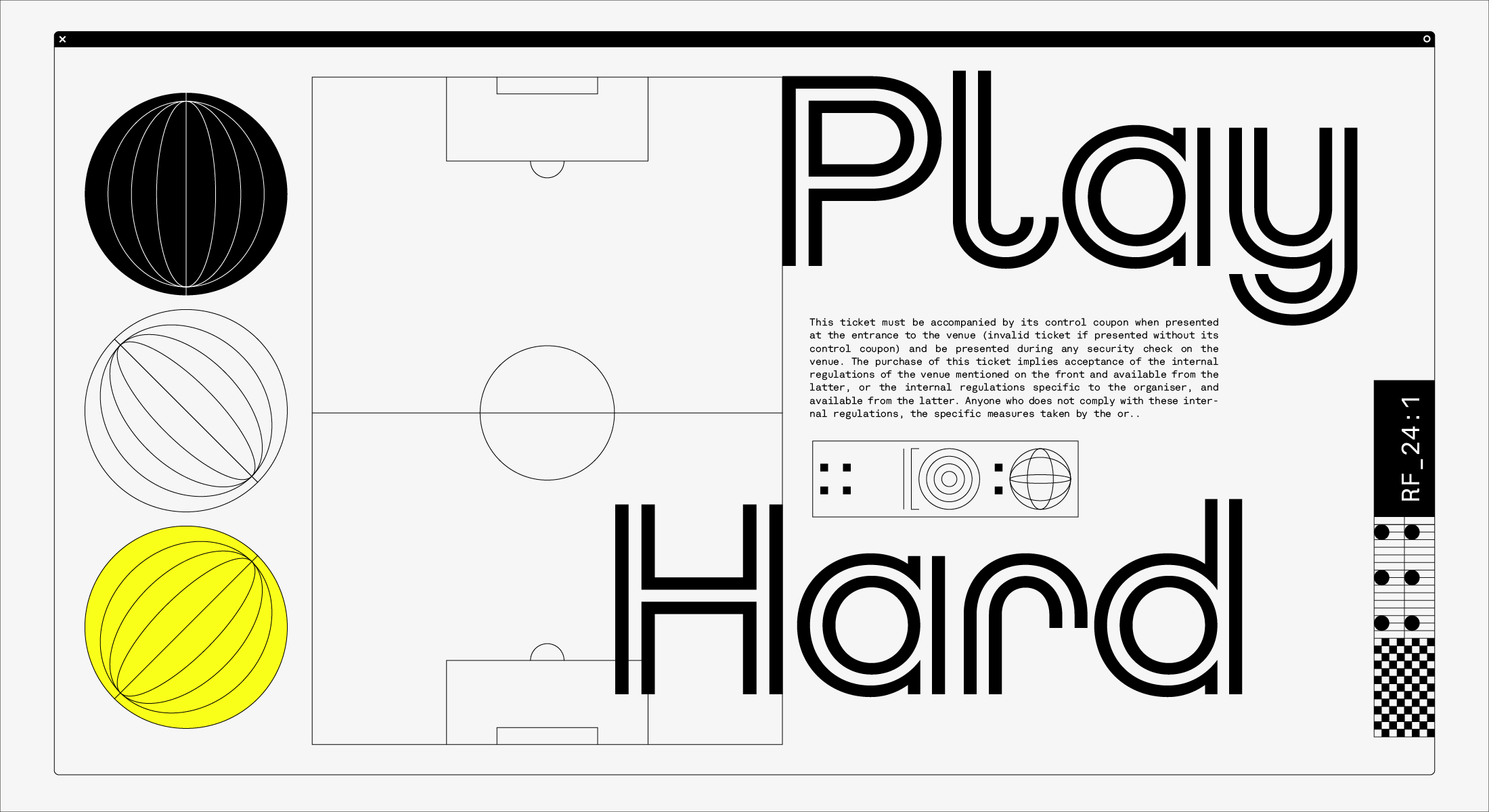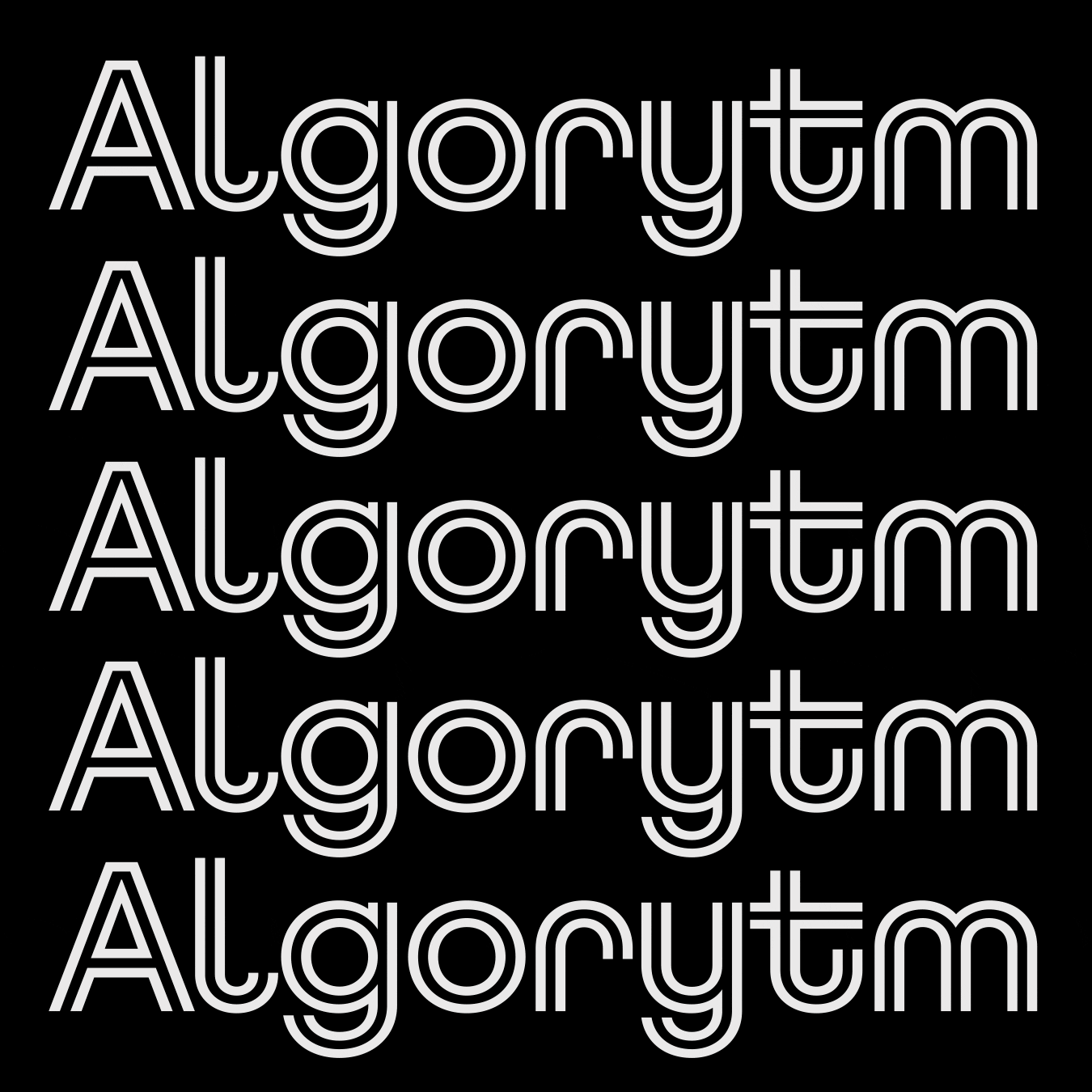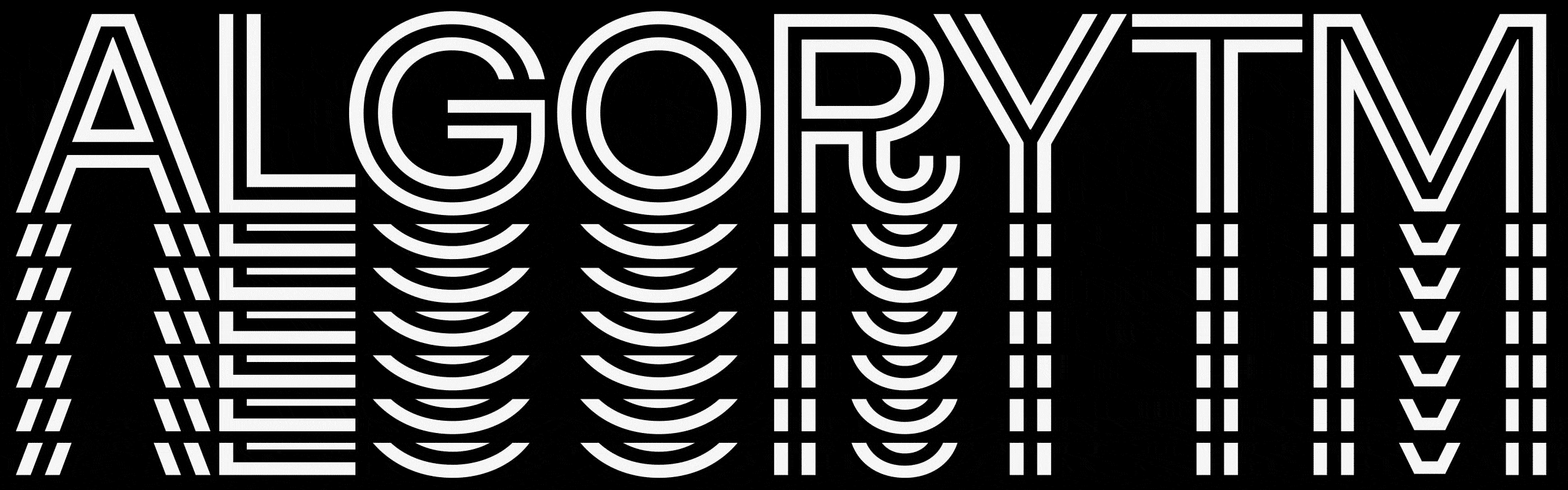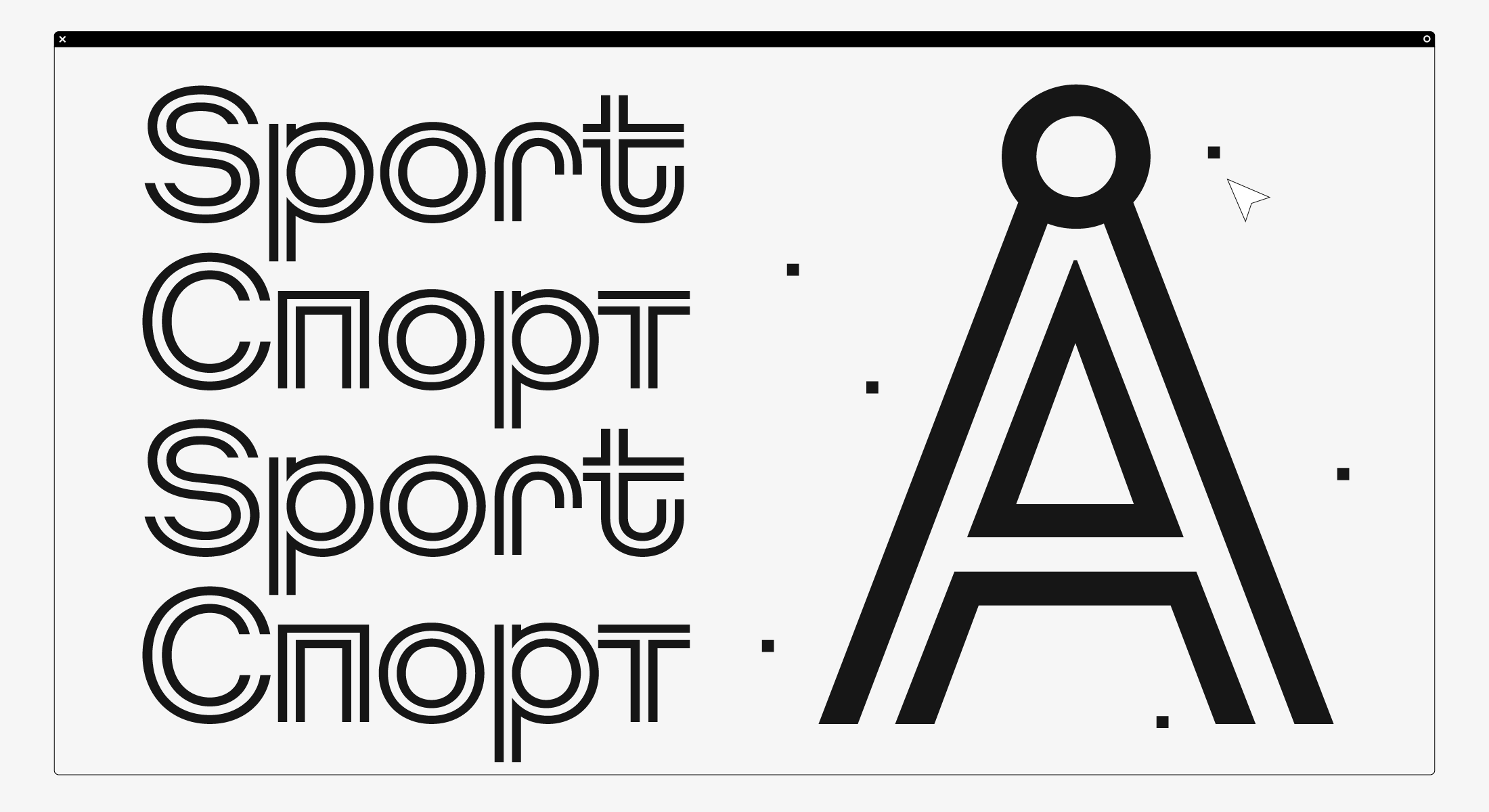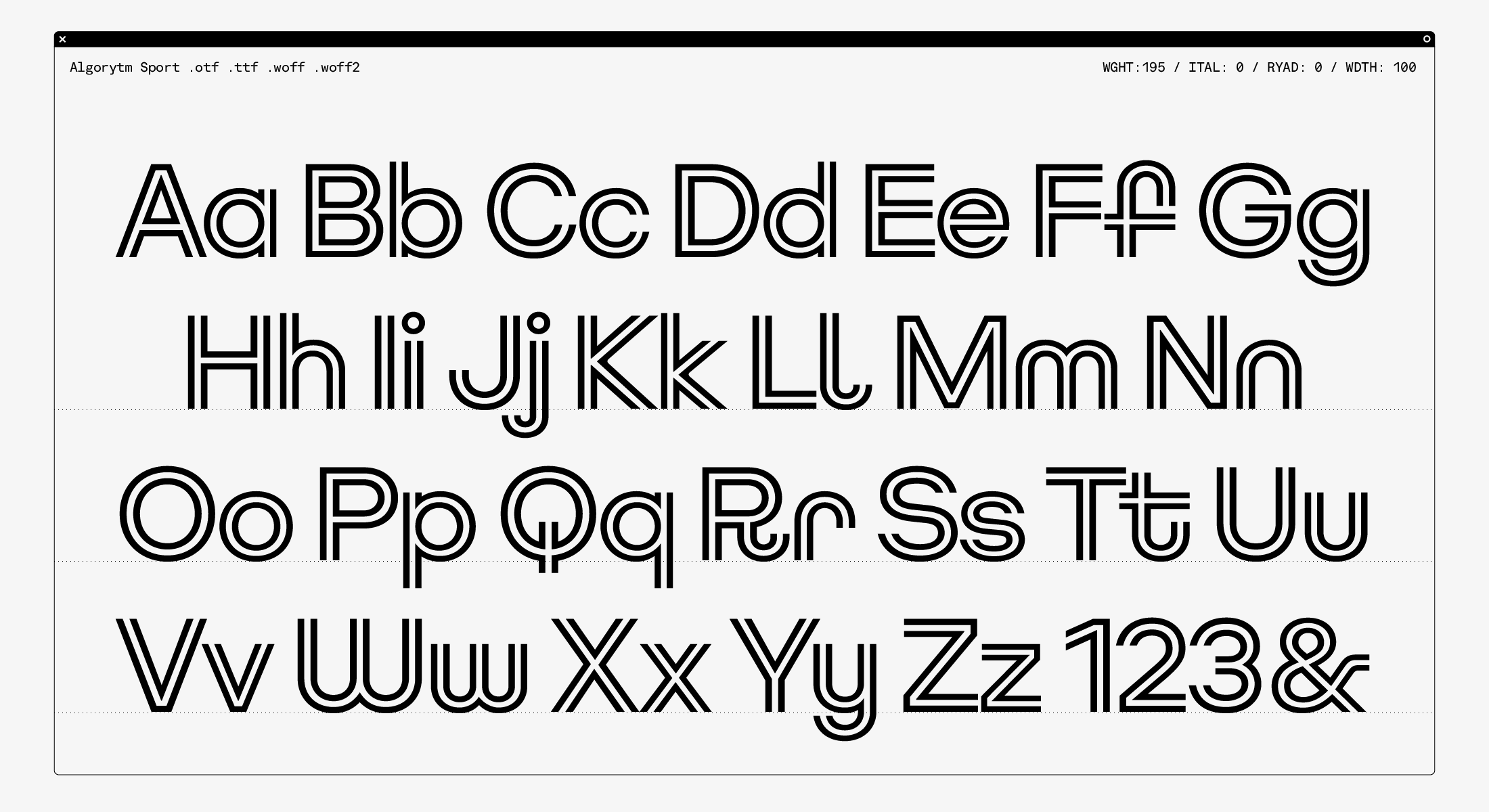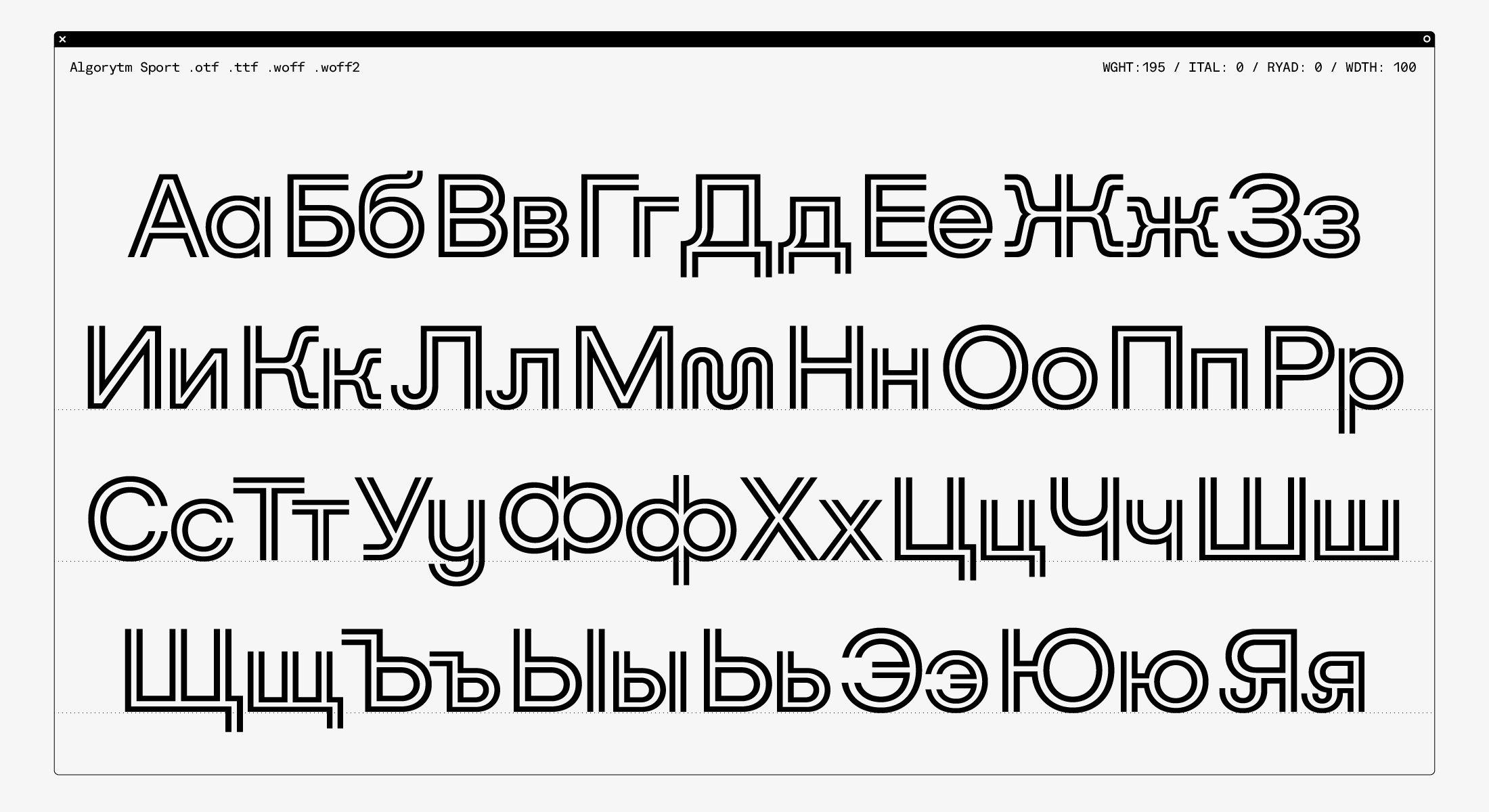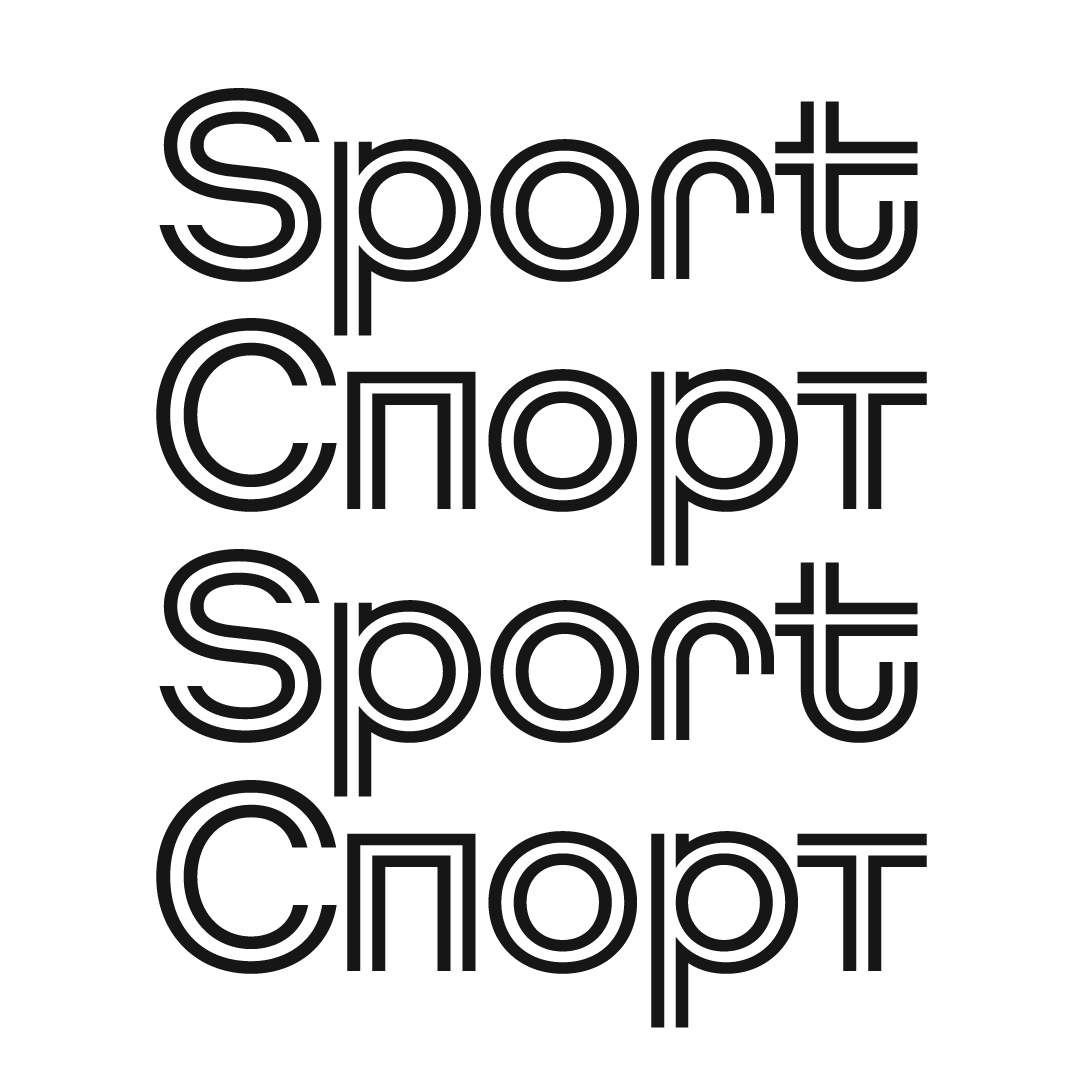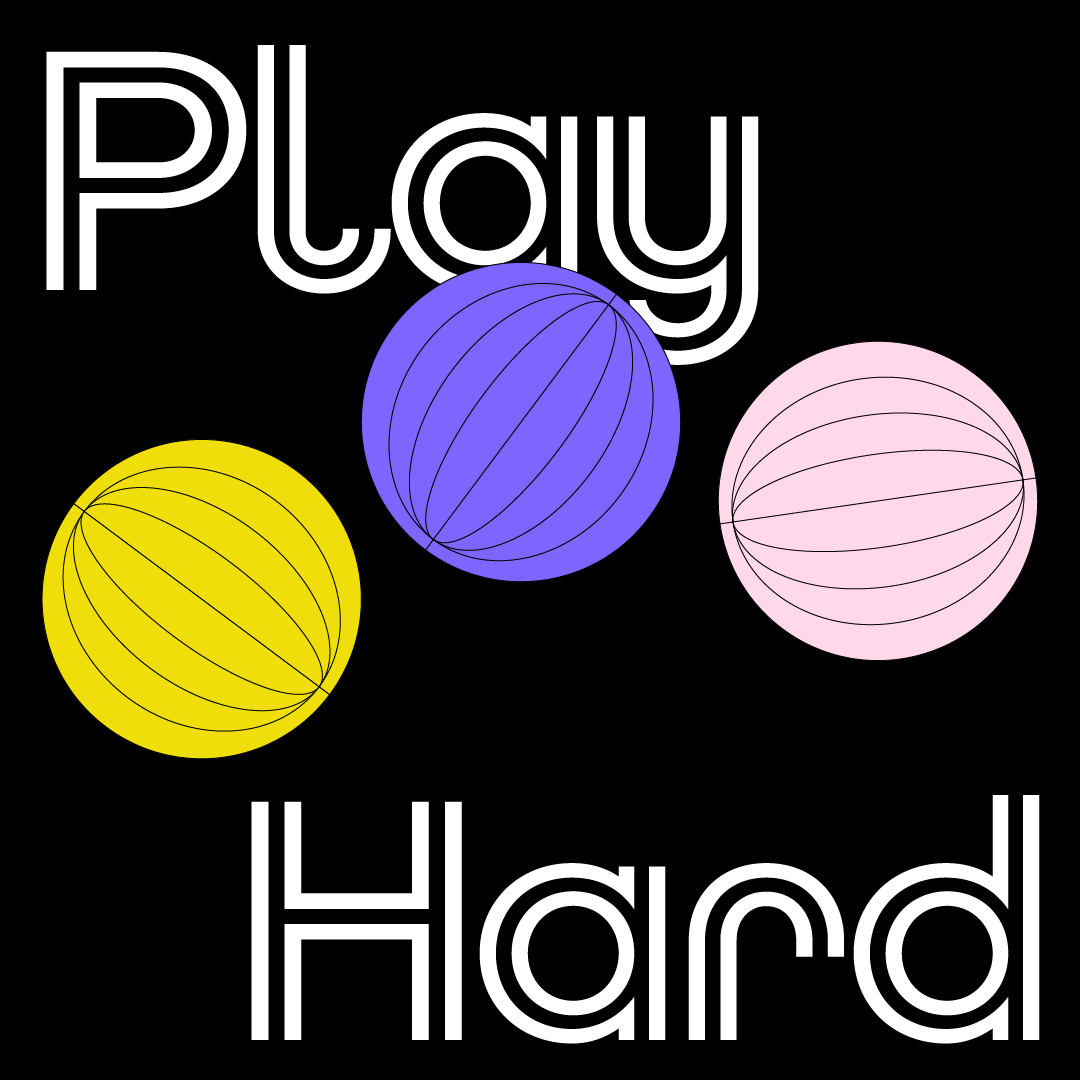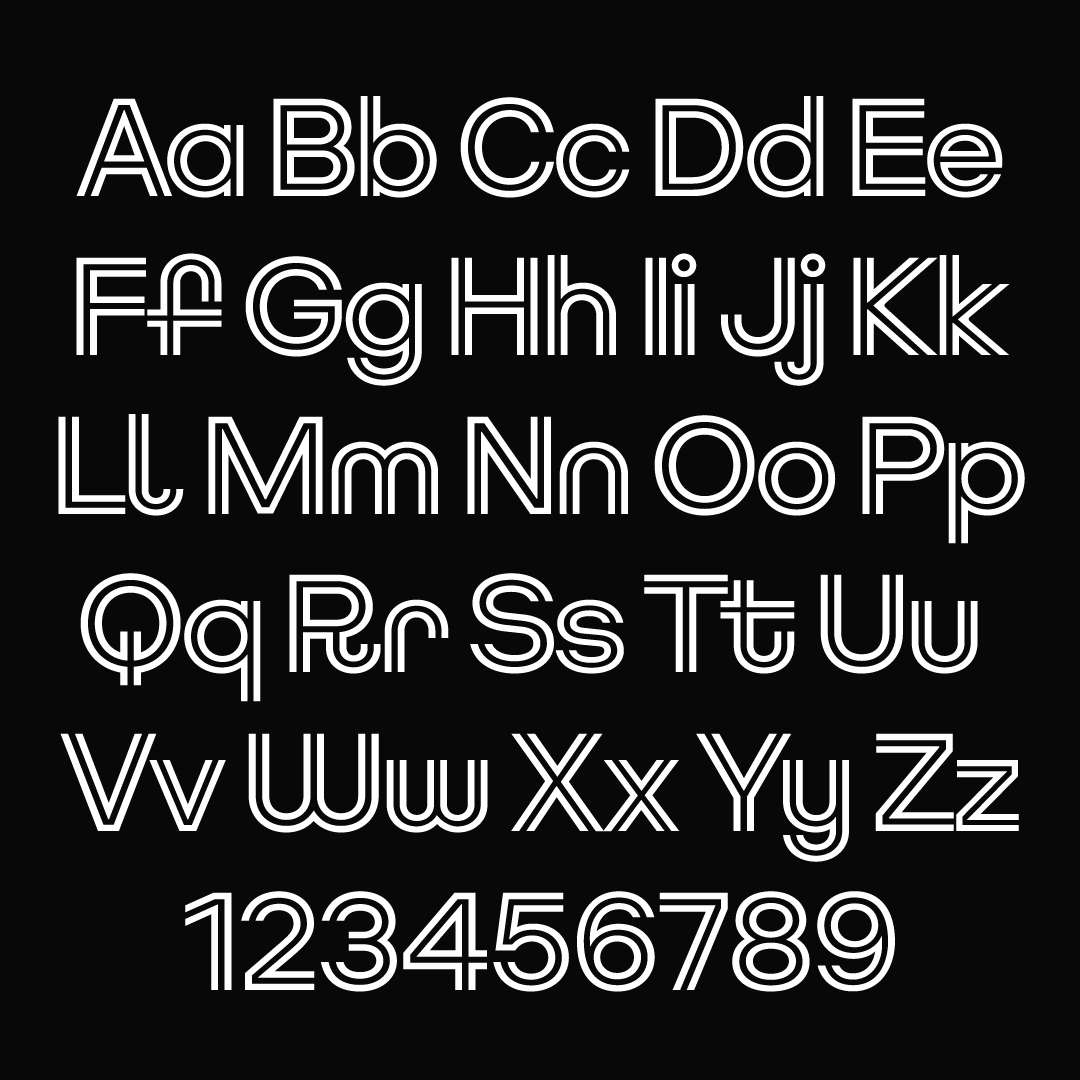
Algorytm Sport Regular
Algorytm Collection, a quick story
Algorytm is a versatile Collection of Sans Serif font families inspired by early gothis such as Times Gothic, Inland Gothic N6, or Gothic N2. Infused with a modern aesthetic and a systematic approach, the design strategy prioritizes multifunctionality, diversity, and flexibility, catering to a myriad of design needs and providing a comprehensive toolbox for visual projects.
The Algorytm collection comprises six type families: Algorytm, Algorytm Clear, Algorytm Mono, Algorytm Flip, Algorytm Soft, and Algorytm Sport, totaling 51 styles. The standard Algorytm version makes a bold statement, ideal for larger sizes, while Algorytm Clear is tailored for legibility in extended text passages. Algorytm Flip is a reverse contrast companion, while Algorytm Soft is a friendly version with rounded corners. Algorytm Sport is the standout member of the family, embodying a vibrant and healthy appearance. Designed for an energetic touch, it adds zest to layouts with its lively inline letters, injecting vibrancy into your designs.
With its abundance of variations, alternates, features, and special characters, Algorytm stands out as a versatile choice, well-suited for a wide spectrum of design scenarios.